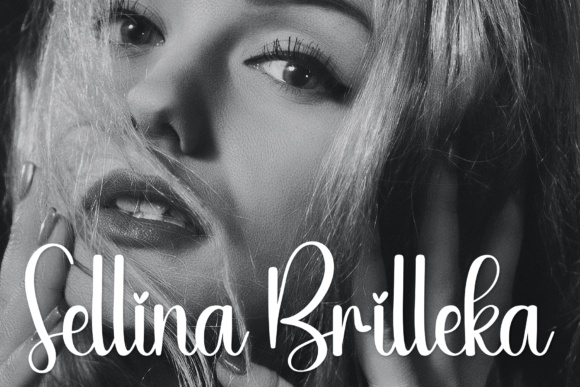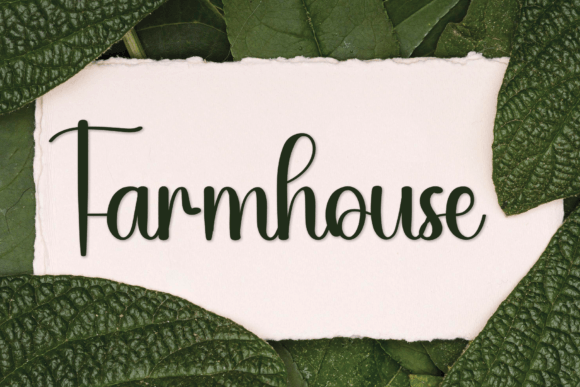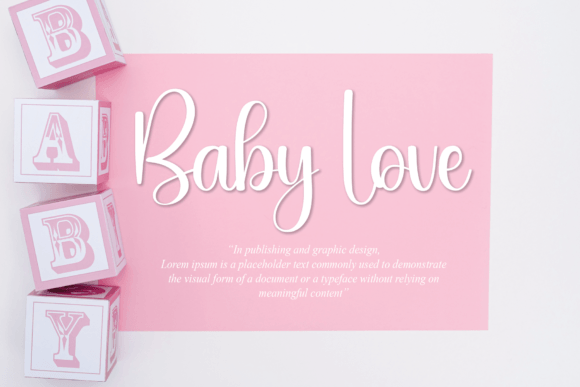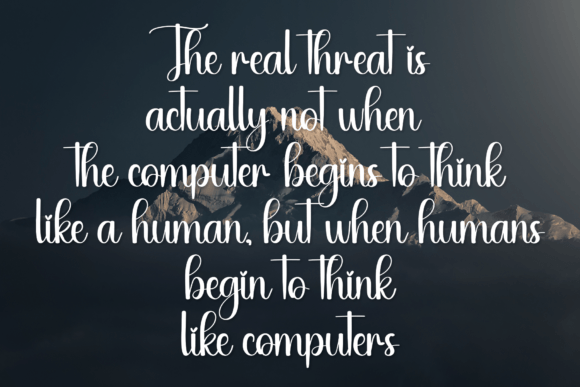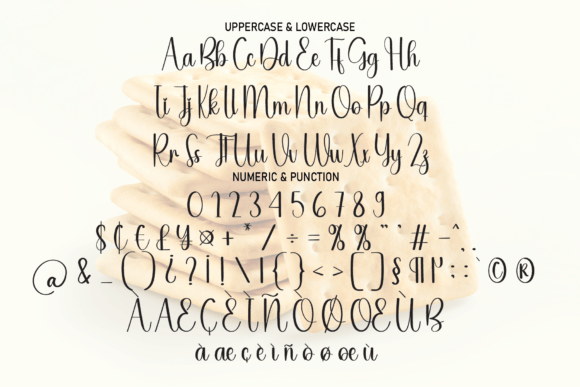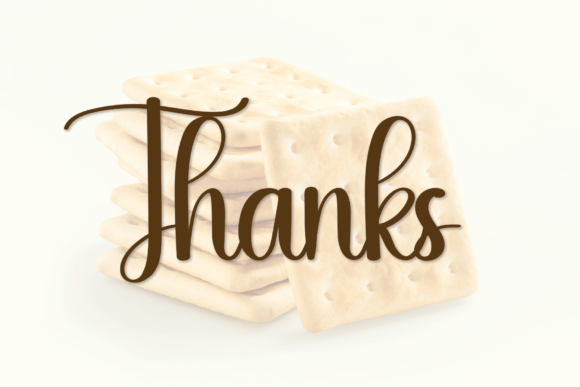
Dry Bakery Font: Elevate Your Designs with a Touch of Romance and Luxury
Are you a designer or crafter looking for a unique and elegant font to add a touch of sophistication to your projects? Look no further than the Dry Bakery font, a romantic and sweet calligraphy typeface that is sure to make your designs stand out. With its flowing characters that dance along the baseline, this font is perfect for creating luxurious and eye-catching designs that will leave a lasting impression.
What is Dry Bakery Font?
Dry Bakery is a beautiful calligraphy typeface that features characters that are carefully crafted to create a sense of movement and fluidity. The font’s unique design allows it to add a touch of romance and elegance to any design project, making it perfect for a wide range of applications, from wedding invitations and branding materials to packaging and advertising.
Key Features of Dry Bakery Font
- Romantic and Sweet: The Dry Bakery font features a romantic and sweet design that is sure to add a touch of elegance to your designs.
- Calligraphy Typeface: This font is a beautiful example of calligraphy typography, with flowing characters that dance along the baseline.
- Luxury Spark: With its unique design and elegant style, the Dry Bakery font is sure to add a luxury spark to any design project.
- Versatile: This font is perfect for a wide range of design applications, from wedding invitations and branding materials to packaging and advertising.
How to Use Dry Bakery Font in Your Designs
Using the Dry Bakery font in your designs is easy. Here are a few tips to get you started:
- Pair it with Other Fonts: The Dry Bakery font pairs well with a variety of other fonts, including sans-serif and serif fonts. Experiment with different pairings to find the one that works best for your design.
- Use it for Headings and Titles: The Dry Bakery font is perfect for headings and titles, where its elegant design can really shine.
- Add it to Your Branding Materials: Use the Dry Bakery font to add a touch of luxury and sophistication to your branding materials, including business cards, letterheads, and packaging.
Benefits of Using Dry Bakery Font
There are many benefits to using the Dry Bakery font in your designs. Here are a few:
- Unique and Eye-Catching: The Dry Bakery font is a unique and eye-catching design that is sure to make your designs stand out.
- Elegant and Sophisticated: This font features an elegant and sophisticated design that is perfect for luxury brands and high-end designs.
- Versatile: The Dry Bakery font can be used in a wide range of design applications, from print to digital.
Who Can Use Dry Bakery Font?
The Dry Bakery font is perfect for a wide range of designers and crafters, including:
- Graphic Designers: Graphic designers can use the Dry Bakery font to add a touch of elegance and sophistication to their designs.
- Wedding Planners and Stylists: Wedding planners and stylists can use this font to create beautiful wedding invitations, programs, and other stationery.
- Crafters and Small Business Owners: Crafters and small business owners can use the Dry Bakery font to add a touch of luxury and sophistication to their branding materials and packaging.